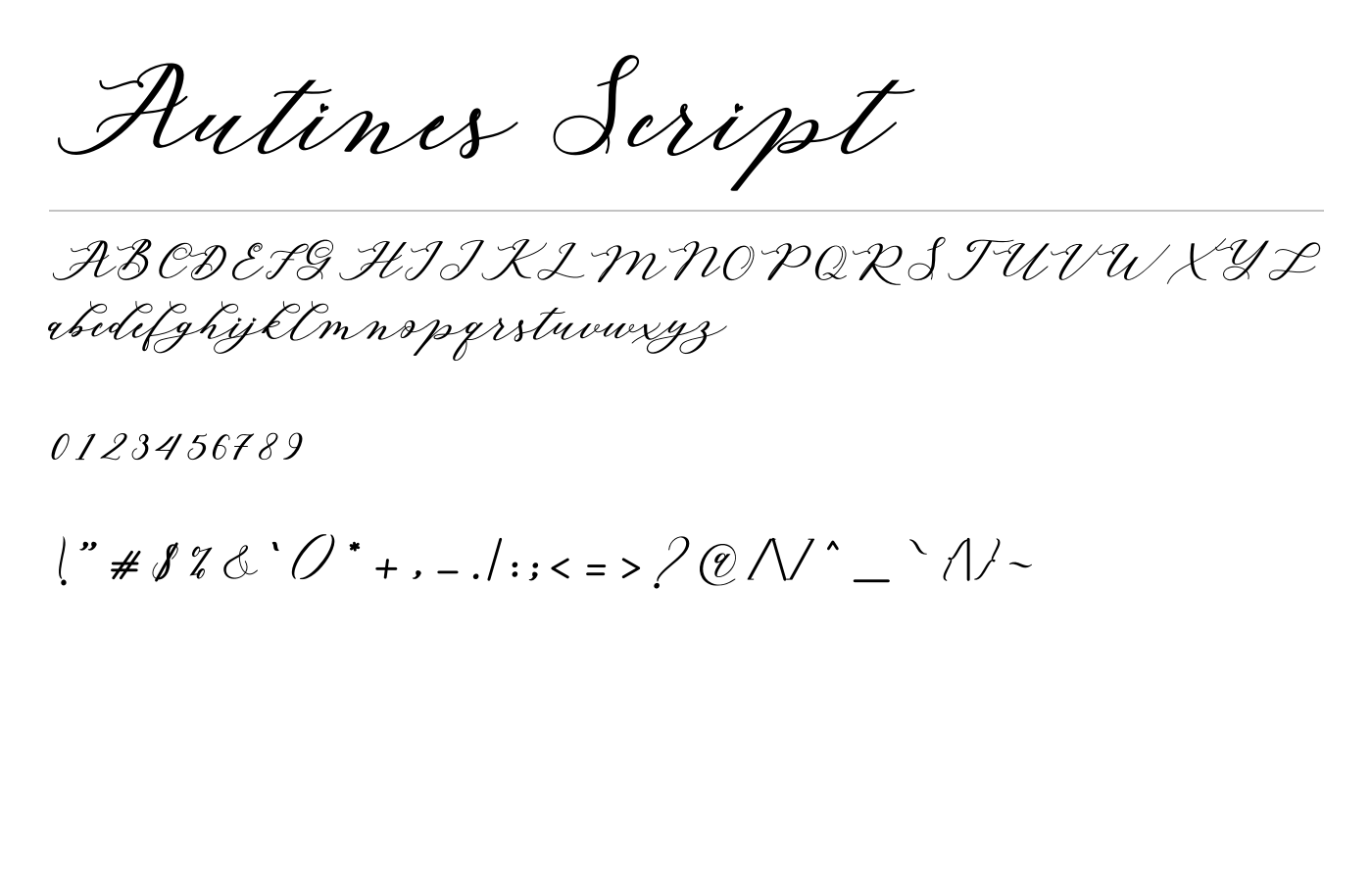
Autines Script is an elegant, flowing script font characterized by delicate, fine strokes and graceful curves that mimic classic calligraphy. Its light weight and high contrast between thin and slightly thicker lines give it a refined and sophisticated personality, making it ideal for wedding invitations, luxury branding, and elegant editorial designs where a touch of timeless charm is desired. This font works beautifully in headlines and decorative text, adding a personal, artistic flair to any upscale or romantic project.
Autines Script Font